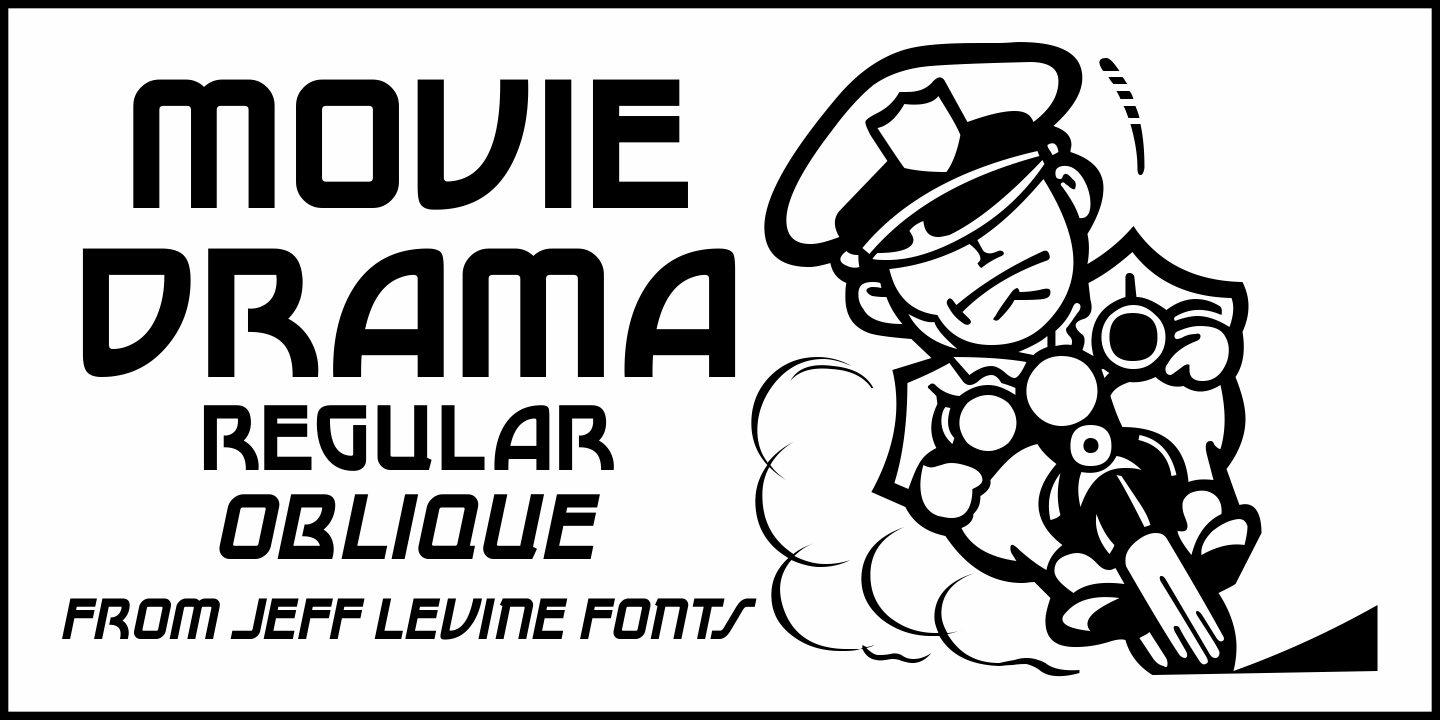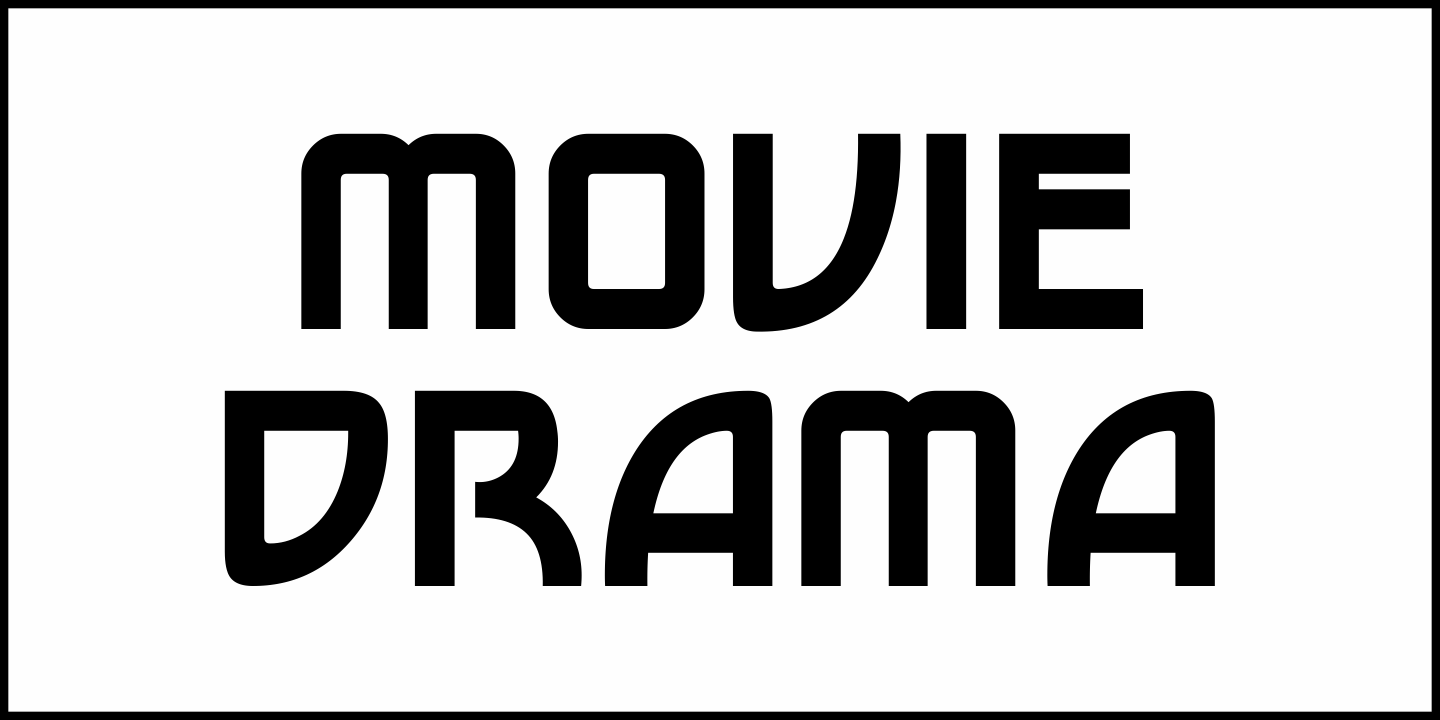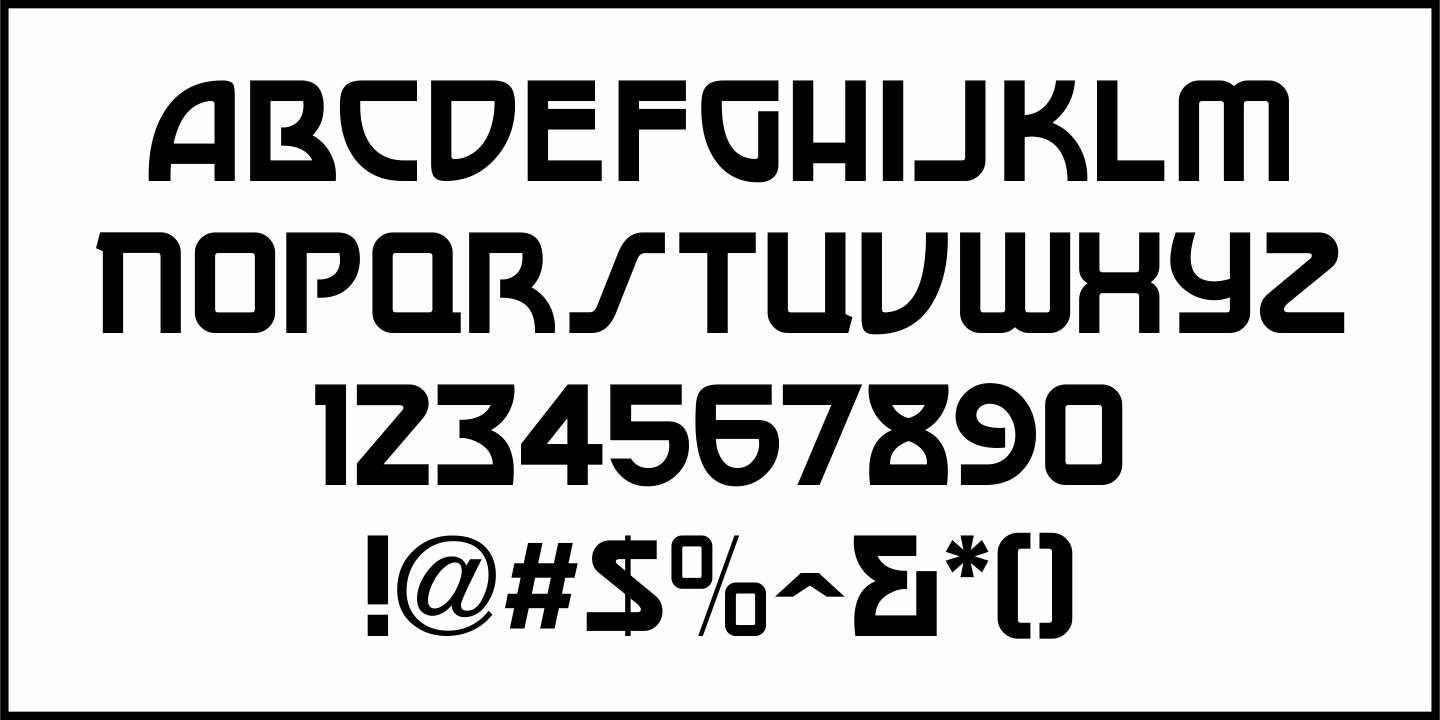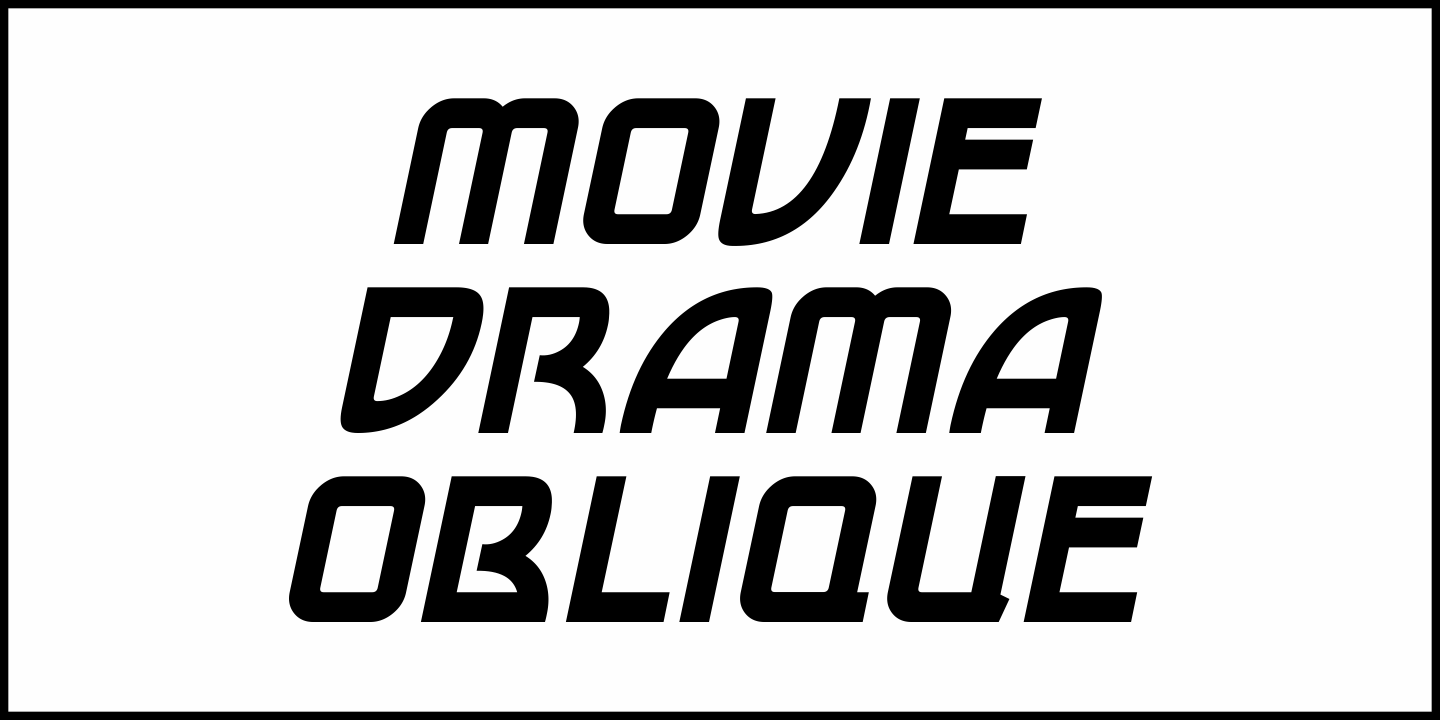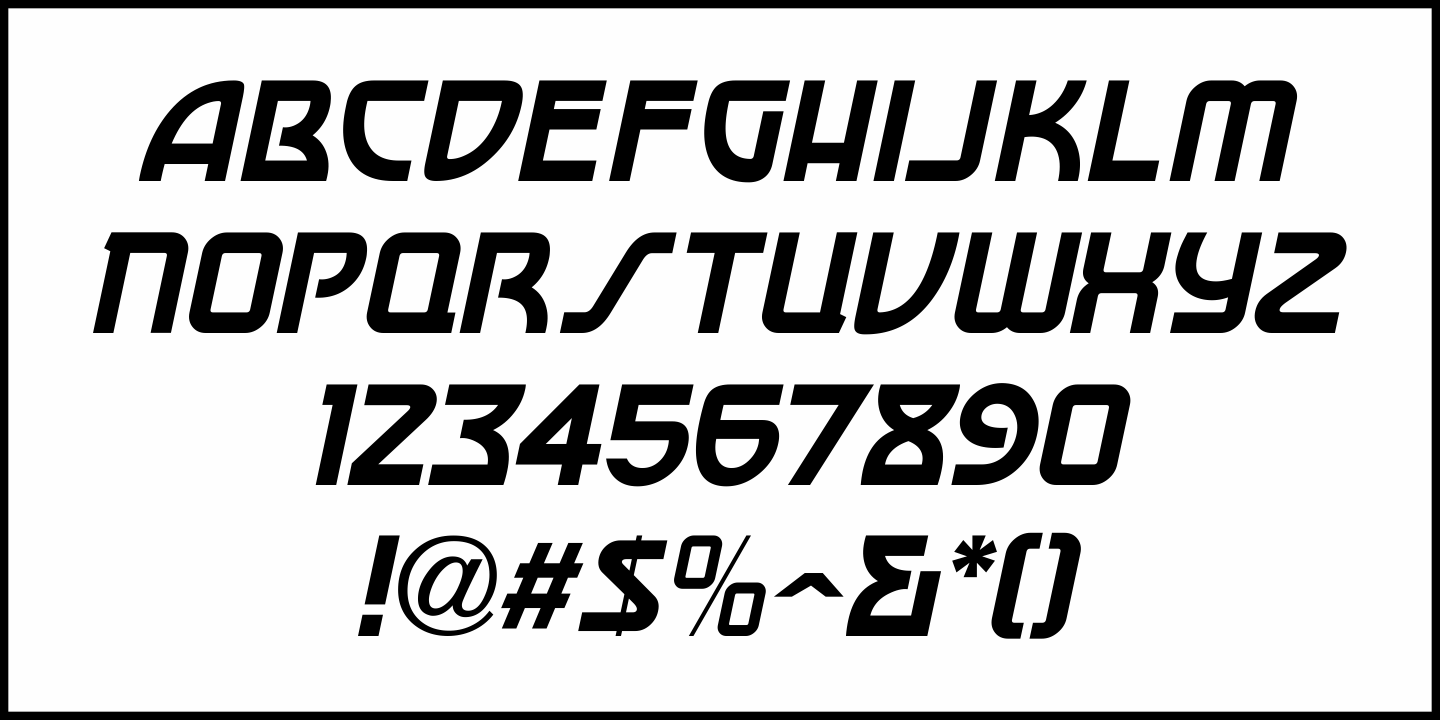
Movie Drama
The Nov. 26, 1921 issue of 'The Moving Picture World” carried an ad for the dramatic film 'For Your Daughter's Sake” (originally tilted 'The Common Sin” and produced in 1920).
Hand lettered in an Art Nouveau sans serif style, the ad copy inspired Movie Drama JNL, which is available in both regular and oblique versions.